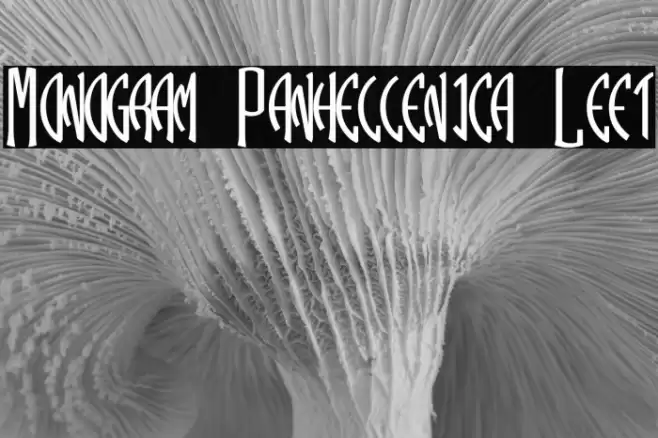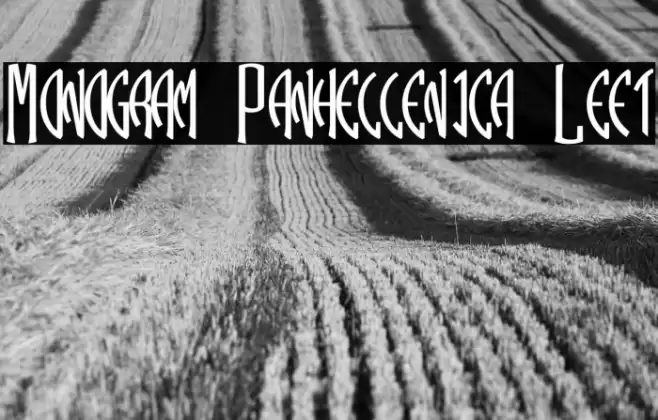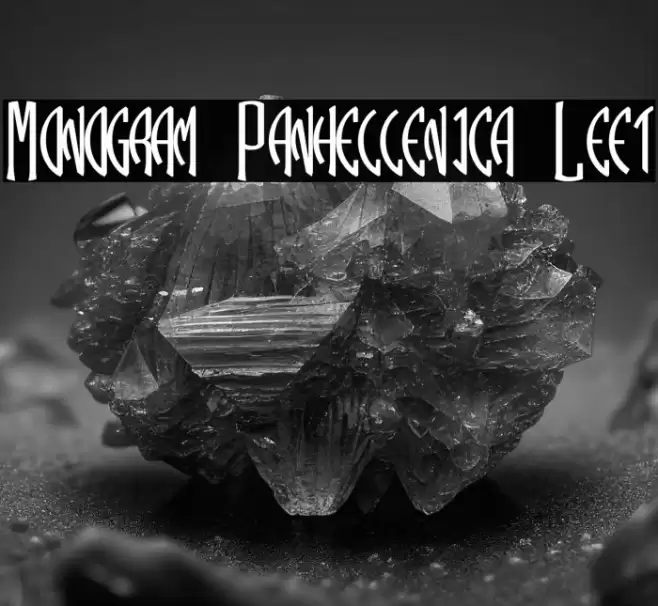
Monogram Panhellenica Left Font
Monogram Panhellenica Left Description
This font features a bold and elongated design with a distinct geometric style. The uppercase letters are tall and narrow, with consistent vertical strokes and minimal curves, giving them a modern and structured appearance. The lowercase letters maintain the same geometric integrity, offering a cohesive look throughout. The numbers and special characters follow the same design principles, ensuring uniformity across all elements. The font's unique style makes it suitable for projects that require a strong visual impact.
| Proposed Projects | Ideal for branding, posters, and headlines where a modern and impactful look is desired. |